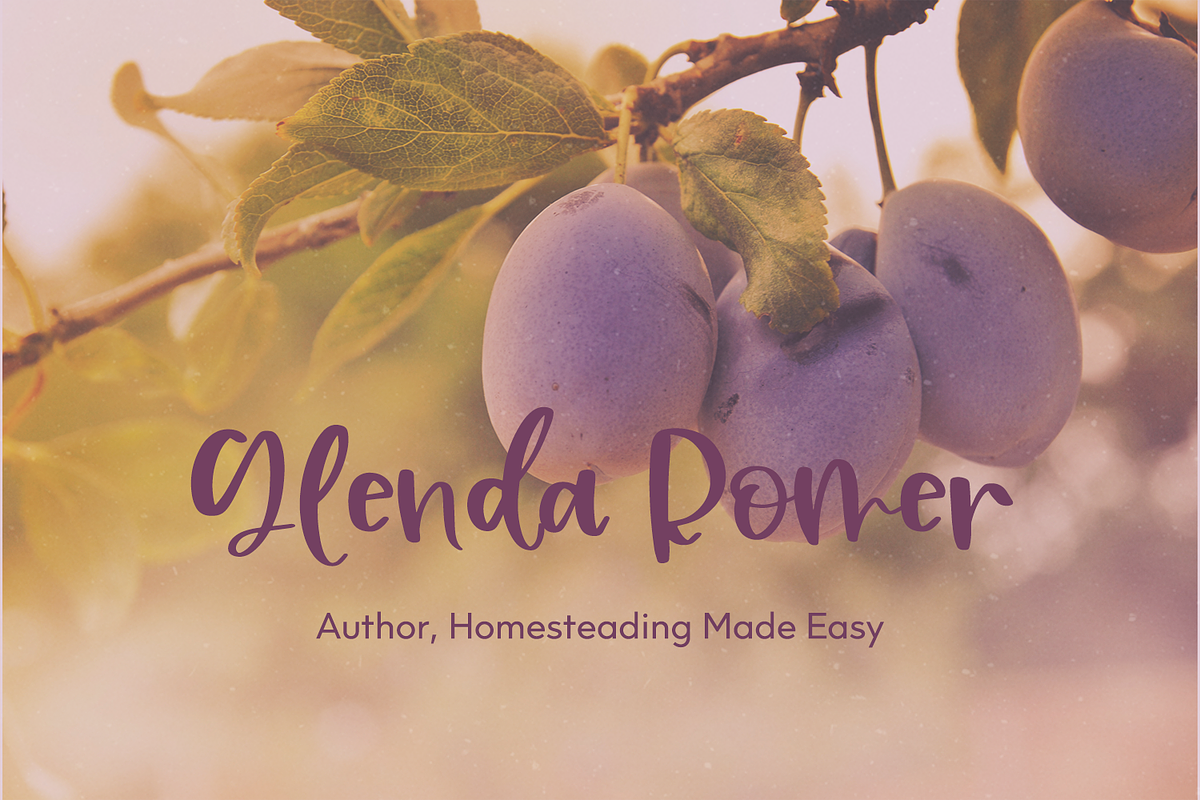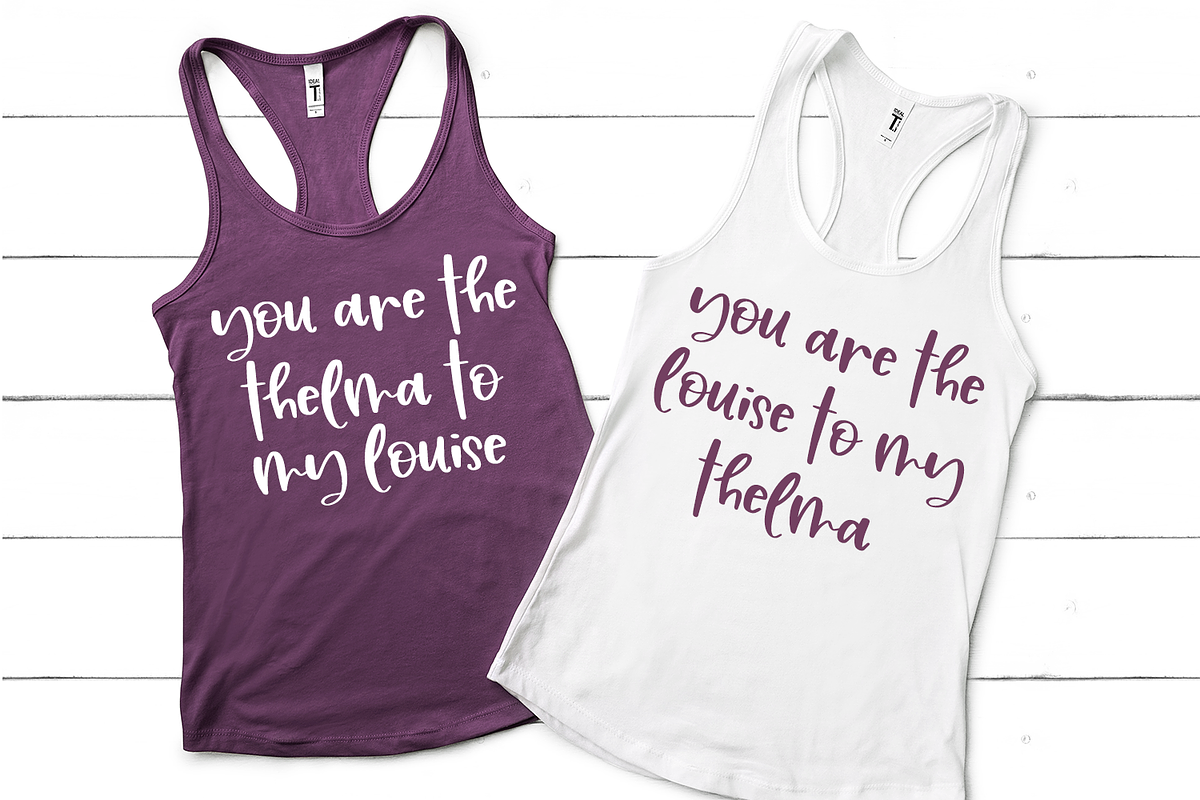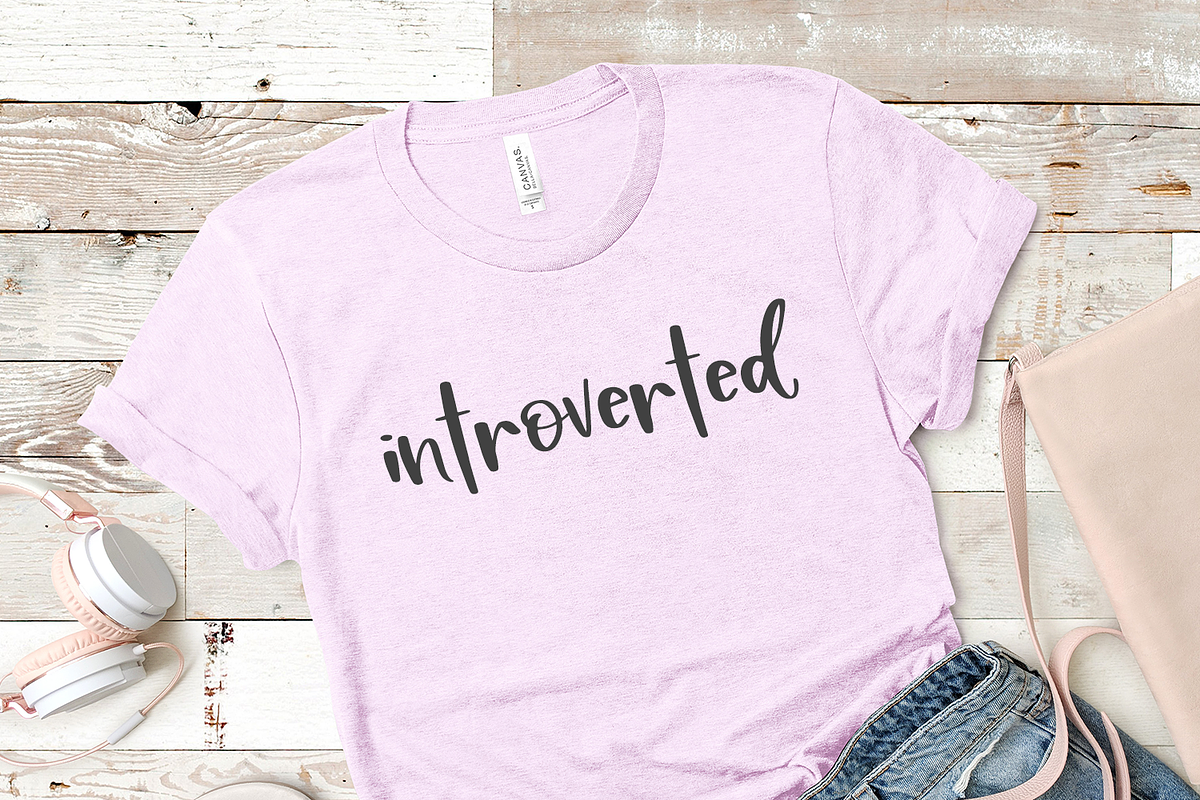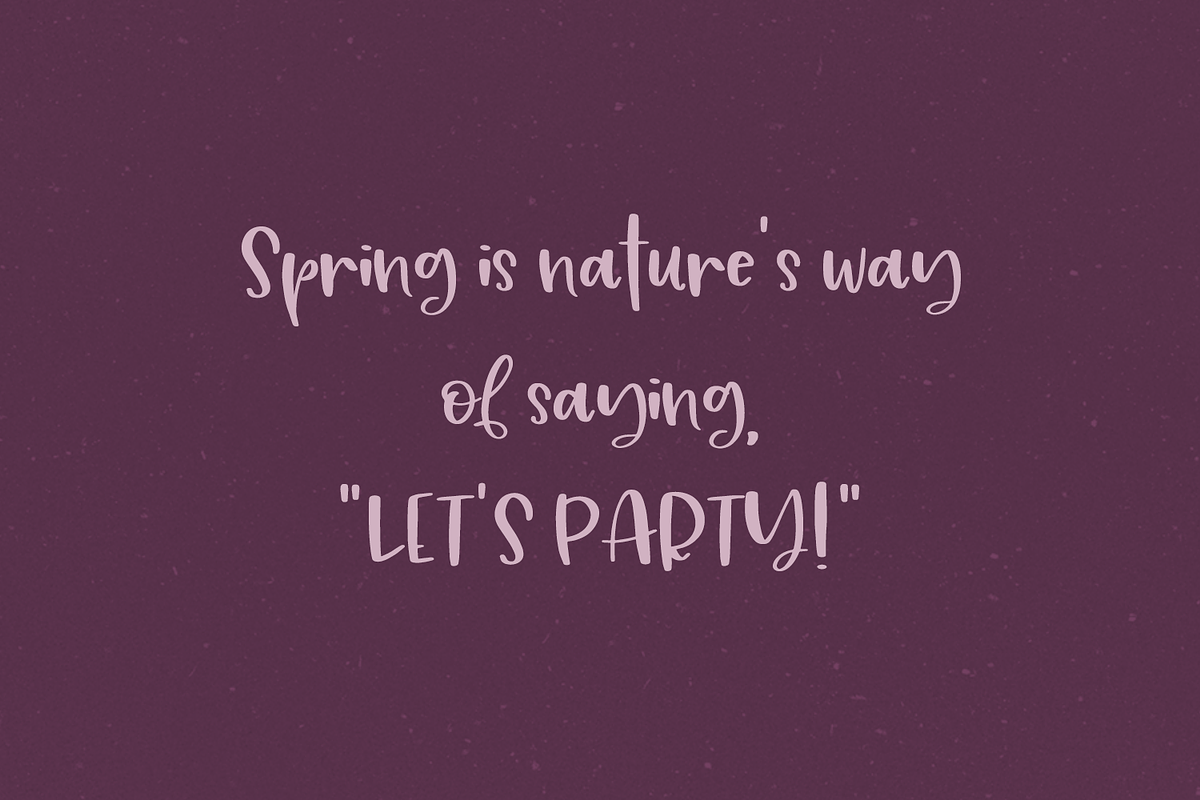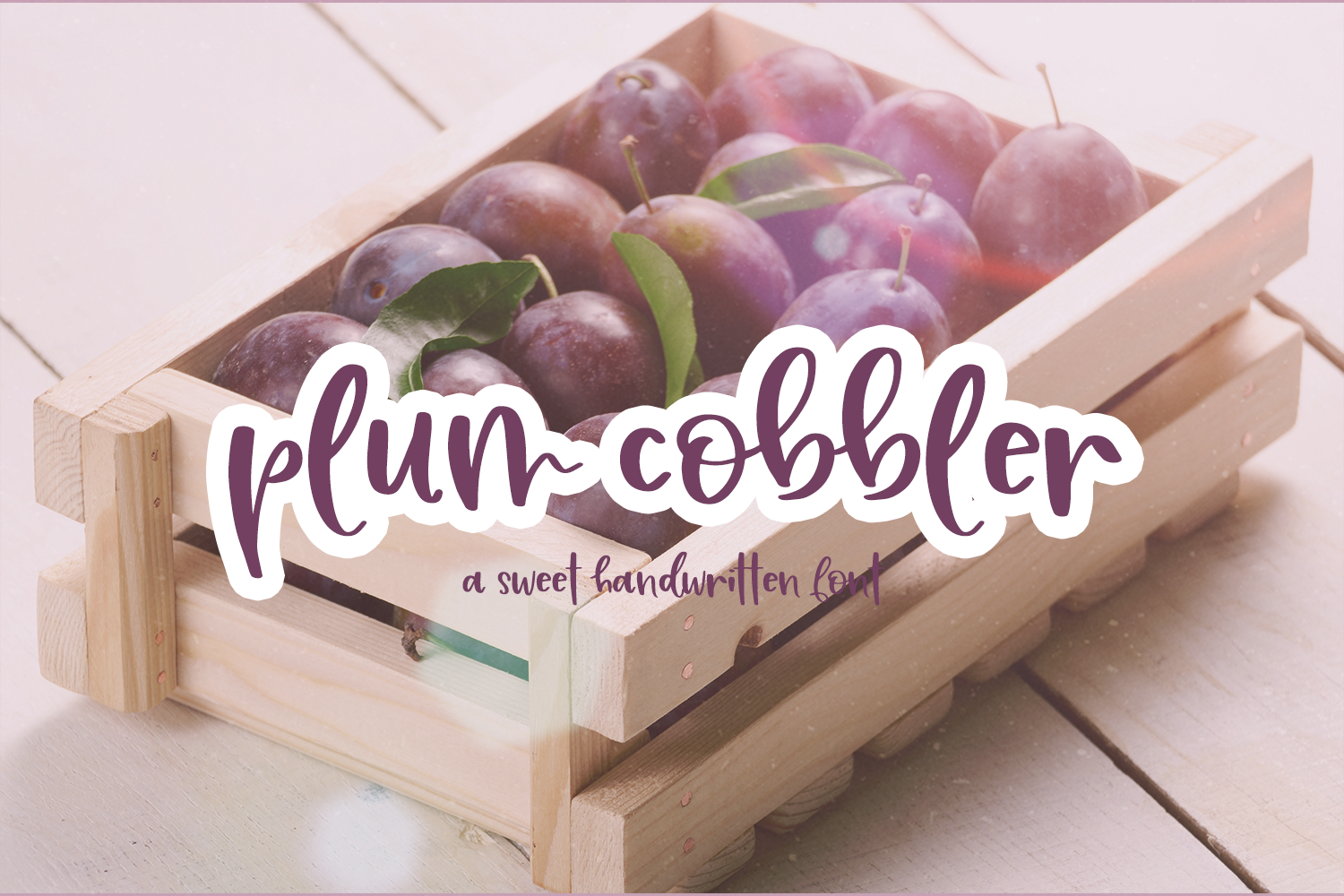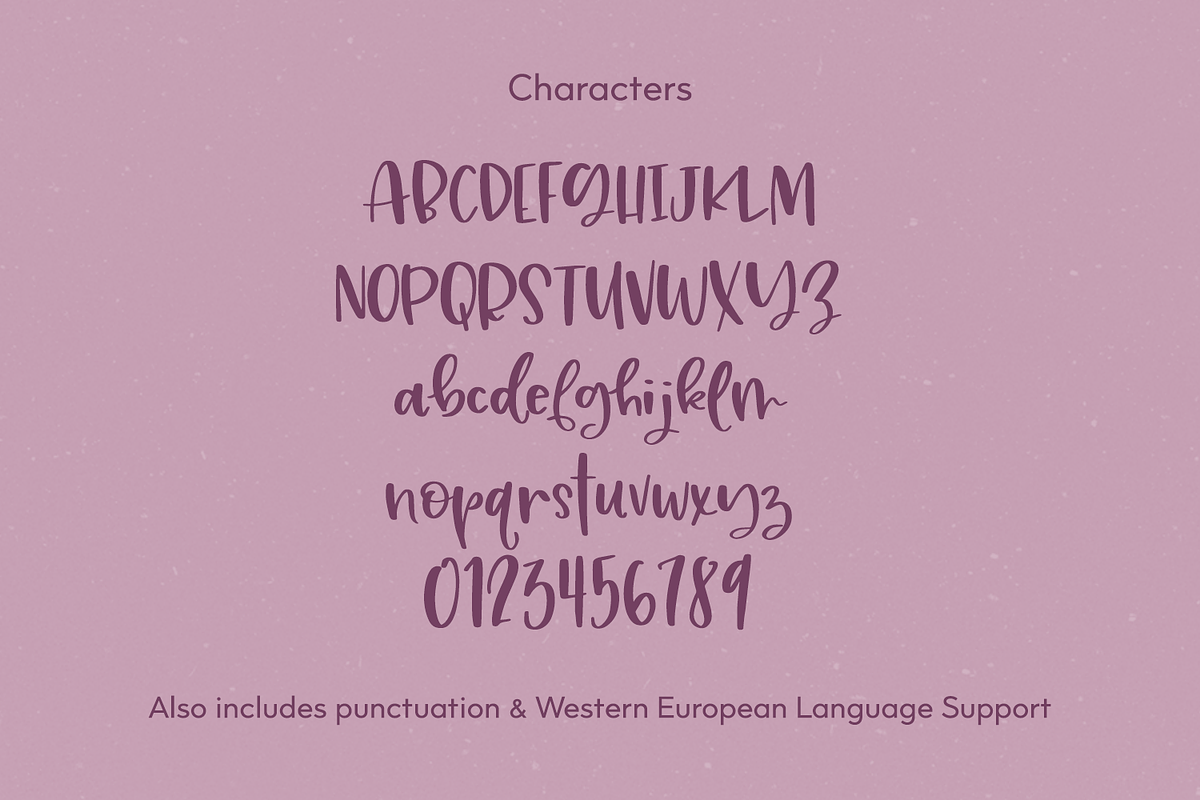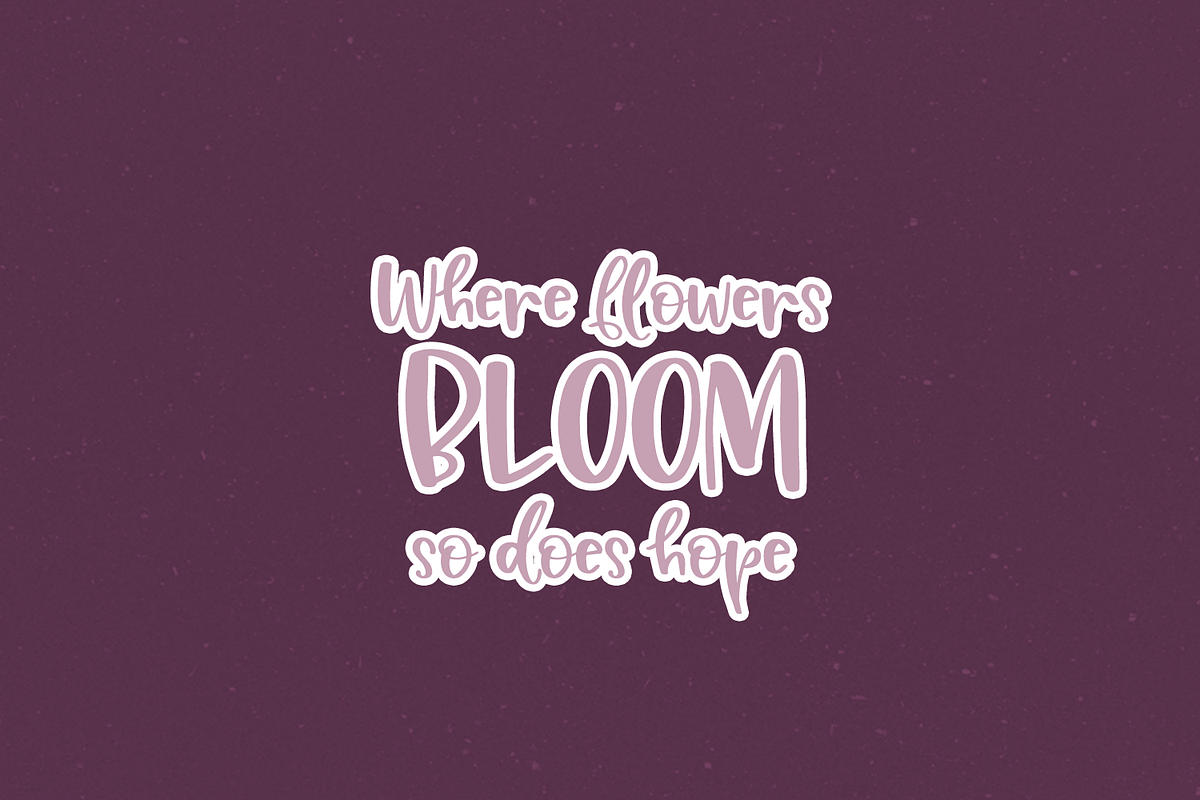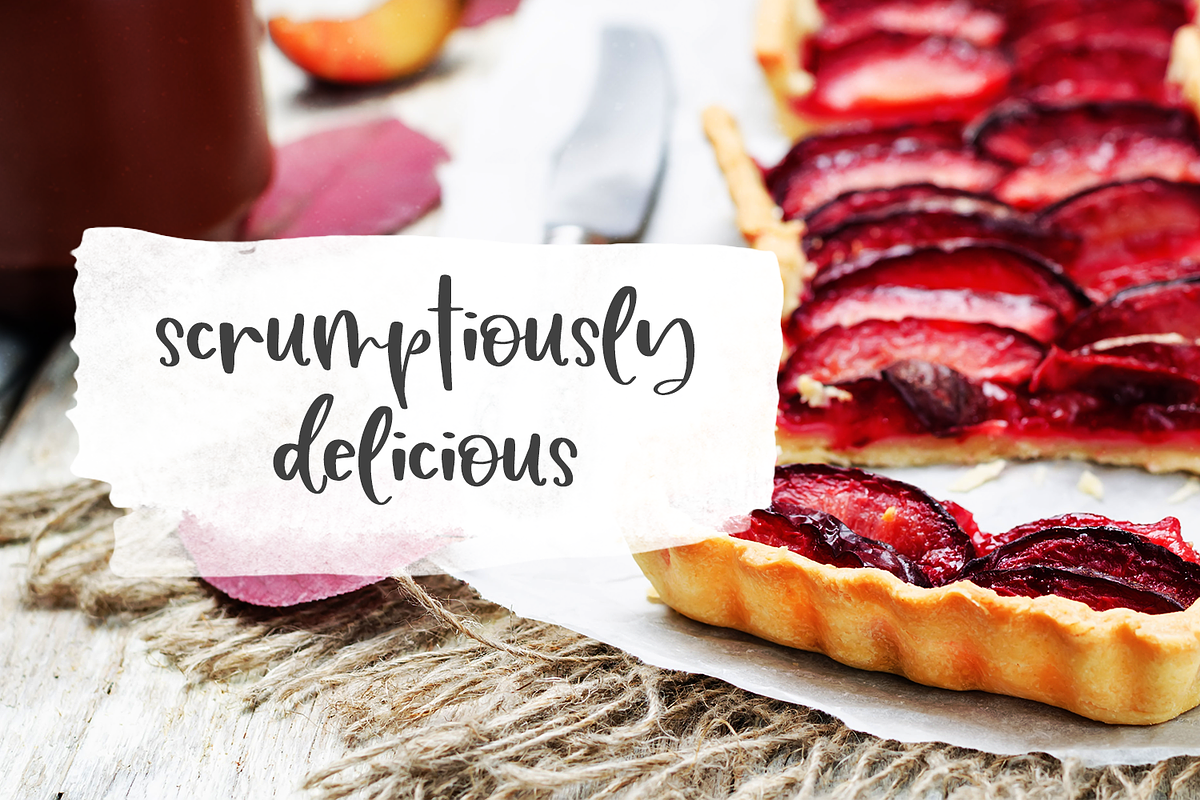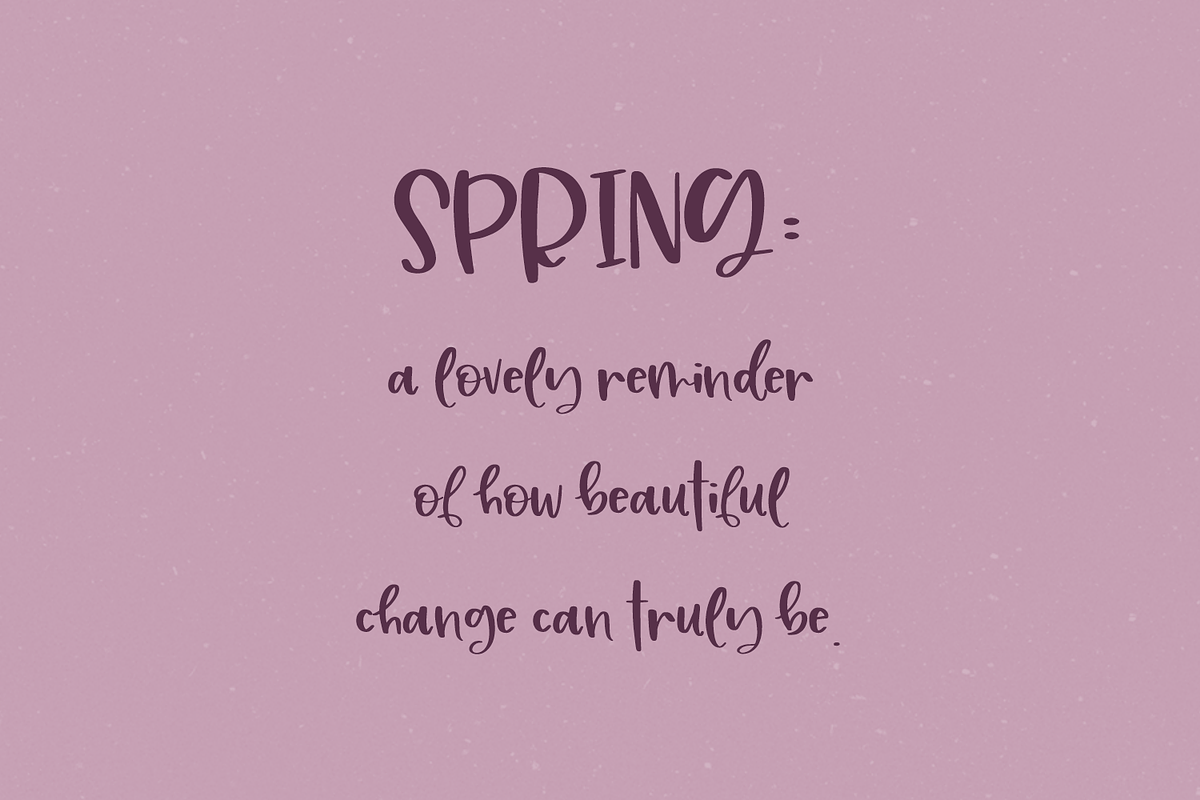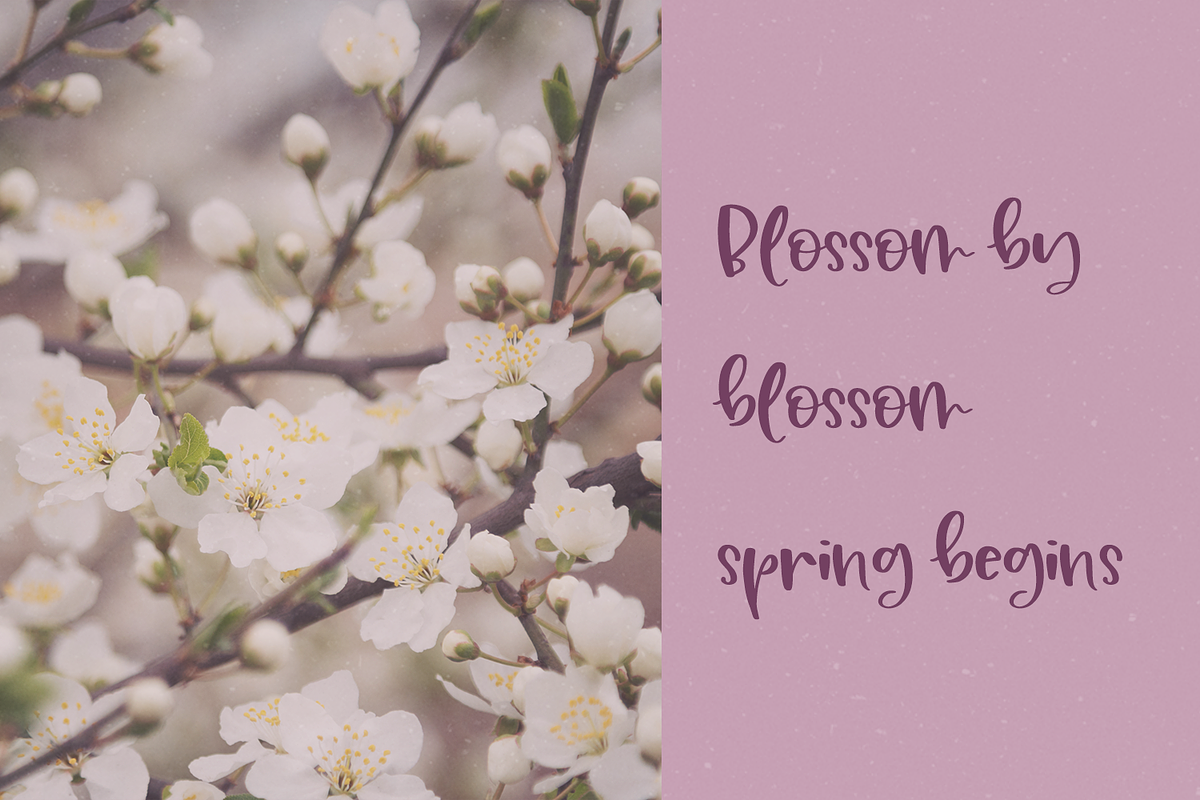
Plum Cobbler Handwritten Font
Meet Plum Cobbler, a chunky, bubbly semi-script.
Plum Cobbler Script is best for:
- quote graphics for social media
- crafting projects
- vinyl cutting on a Cricut or Silhouette machine because it has a super clean, smooth edge
- playful logos + branding
- header elements that need handwritten touch
- full upper + lowercase characters
- numbers + punctuation
- Western European Language Support